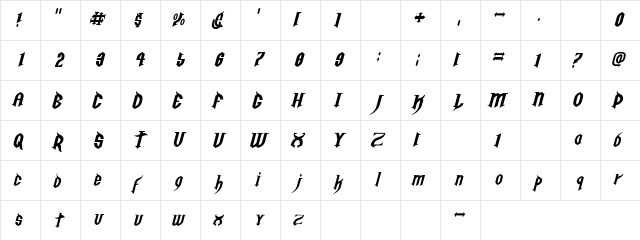
Golgotha Oblique E.
Design Context for Golgotha Typeface
Golgotha is a composed and adaptable typeface that performs quietly and consistently across a wide range of design contexts. The dynamic lean of this cut emphasises speed and emphasis in any layout.
Pro Tip: Try Golgotha for annotation and caption copy alongside an upright companion — the contrast in angle creates a dynamic but ordered typographic system.